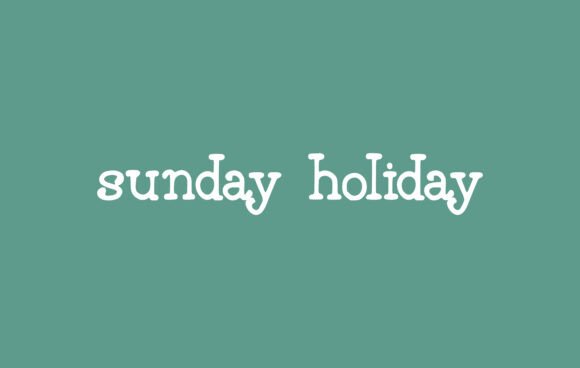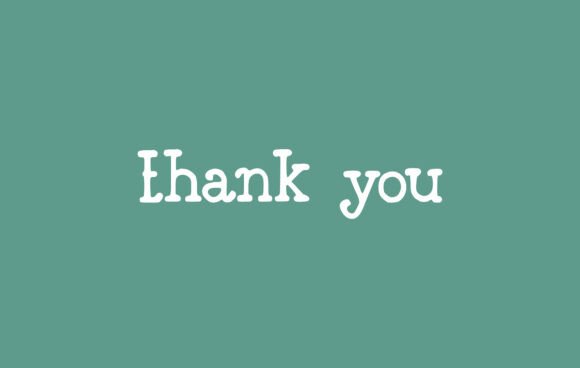
Introduction to Jonas Font
Remember the rush of excitement you feel when you finally stumble upon the perfect design element for your creative project? The spark that ignites your imagination and sets your ideas ablaze? For many designers, this moment is what drives them to push the boundaries of their art.
Jonas Font is one of those magical finds that can elevate your design to new heights. With its authentic handwritten touch and romantic flair, this high-quality font is sure to captivate your audience and leave a lasting impression. Whether you’re working on a magazine headline, social media campaign, or wedding invitation, Jonas Font is the perfect design resource to bring your vision to life.
Key Features of Jonas Font
- High-quality, professional font suitable for creative projects and design resources.
- Features a transparent background, allowing for easy overlay and customization.
- Resolution-independent, ensuring crisp and clear typography across various devices and screen sizes.
- Designed with a unique, modern aesthetic, perfect for adding a touch of sophistication to creative projects.
- Includes a comprehensive character set, covering a wide range of languages and accents.
Honest Review: Jonas Font
As a designer, I’ve had the pleasure of working with various fonts, and Jonas Font is definitely one of them. I must say, I’m impressed with the overall quality of this font.
One limitation I’ve noticed is that Jonas Font may not be the best choice for projects that require a lot of customization. The font is quite straightforward, and it may not offer the level of flexibility that some designers need. ⚠️ However, for most projects, Jonas Font is a great choice.
Overall, I’m very impressed with Jonas Font. It’s a high-quality font that’s perfect for designers who need a simple yet elegant font for their creative projects. I would definitely recommend it to anyone looking for a great design resource.
Jonas Font